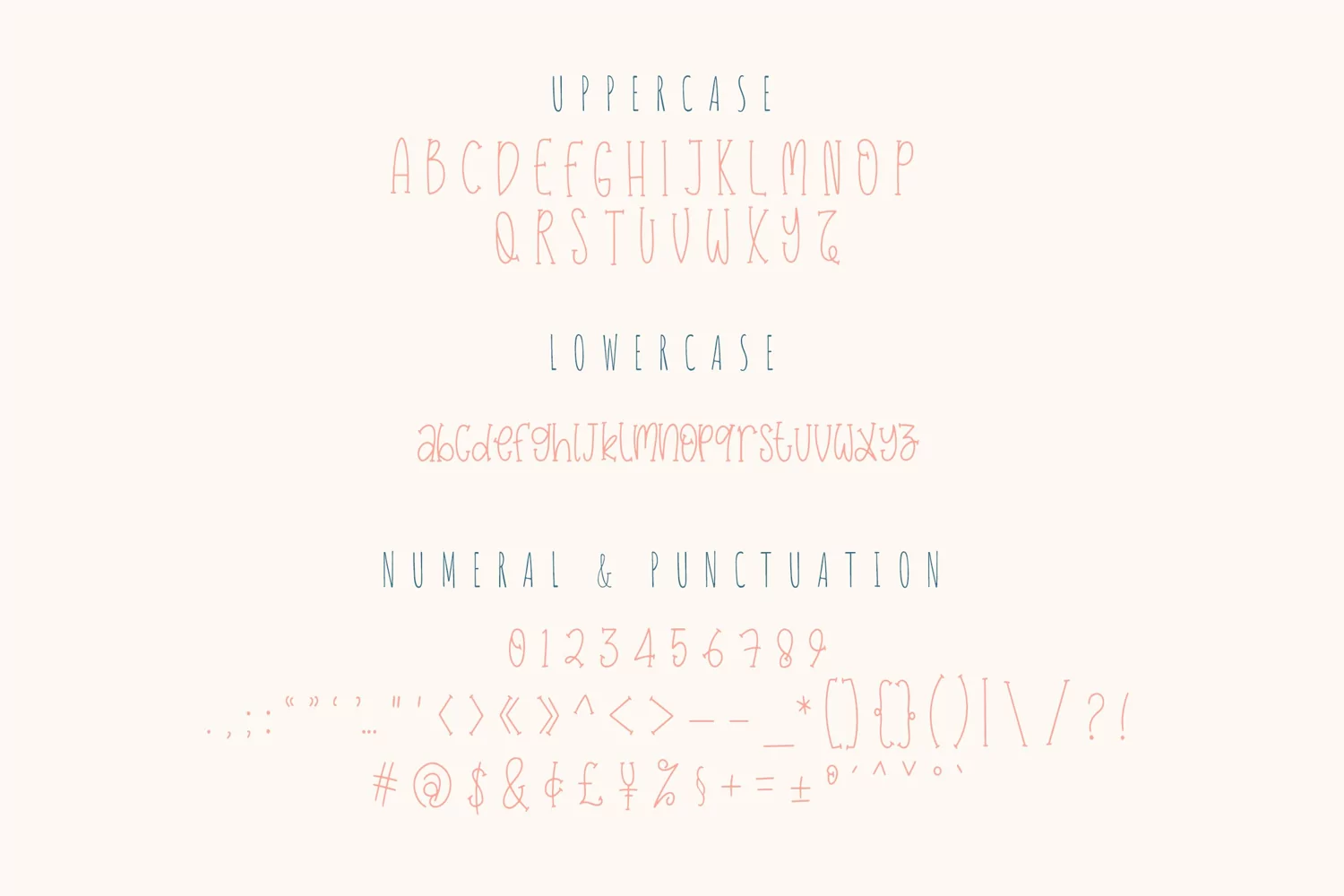
Gwiyomi is a cute and charming handwritten font. Sweet and playful, this typeface can elevate the look of any creation ranging from product packaging to business cards, and more!
Gwiyomi